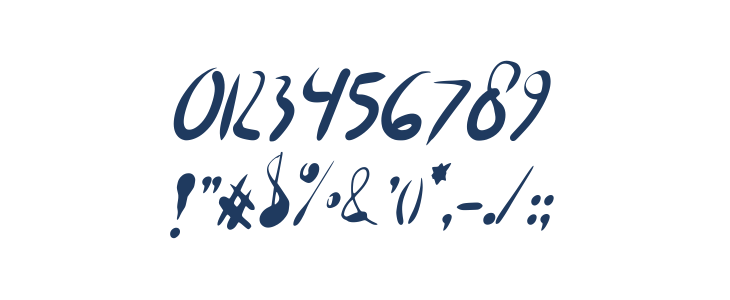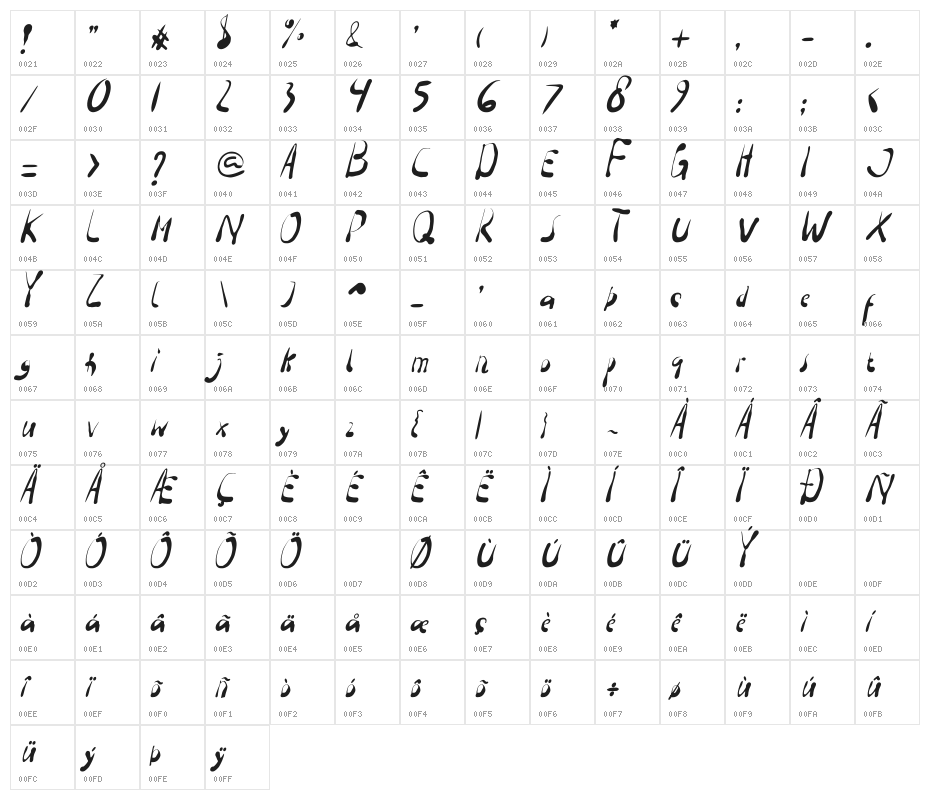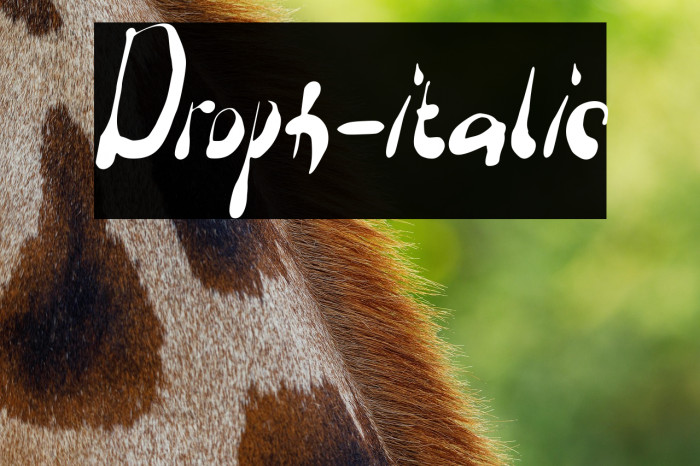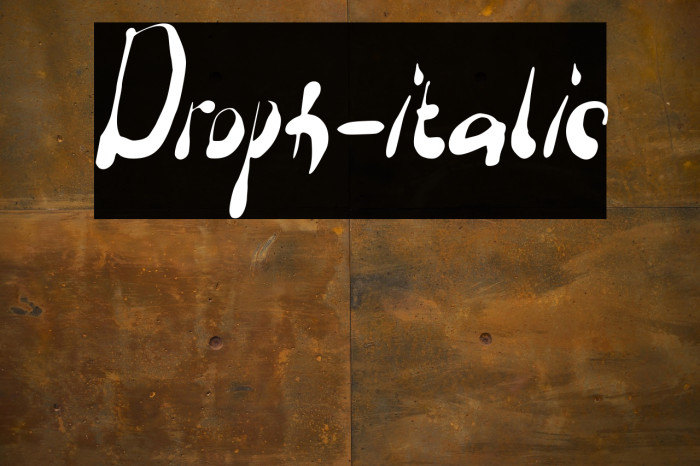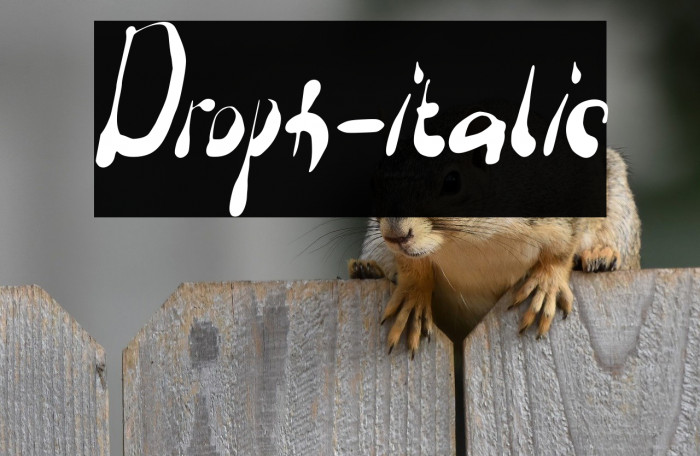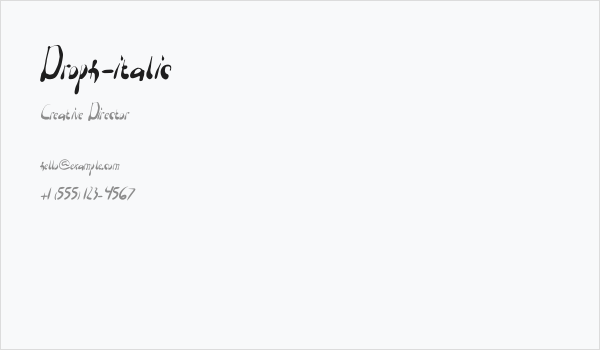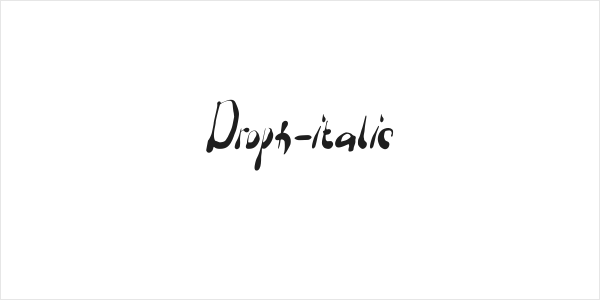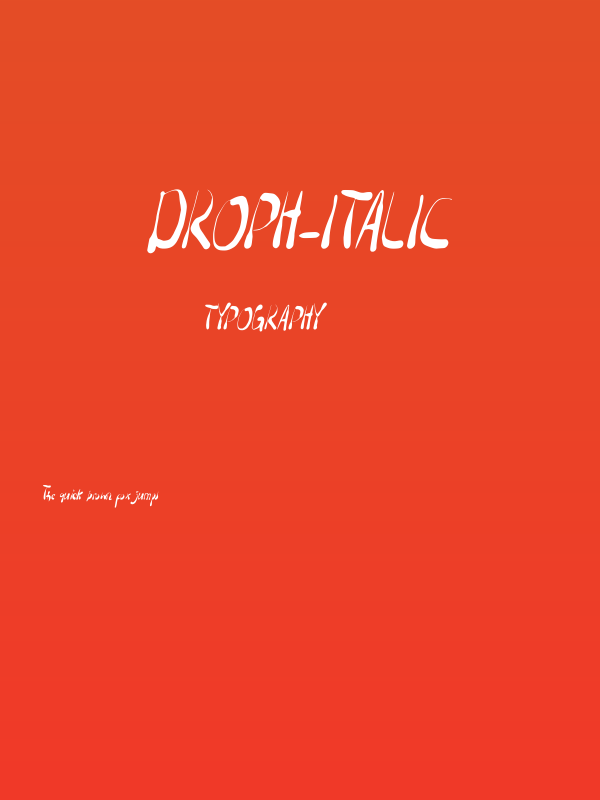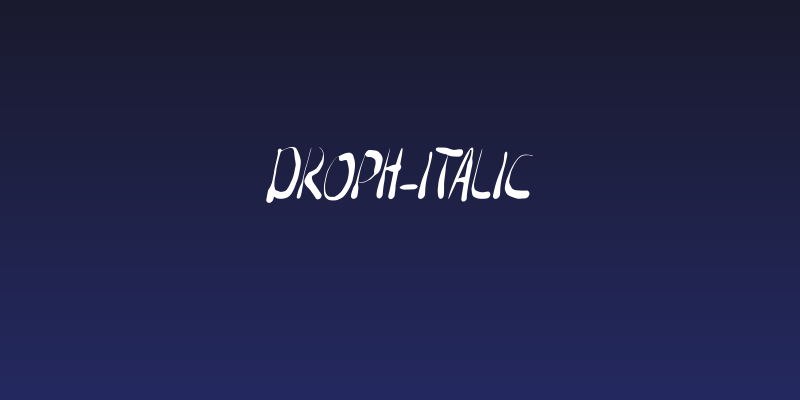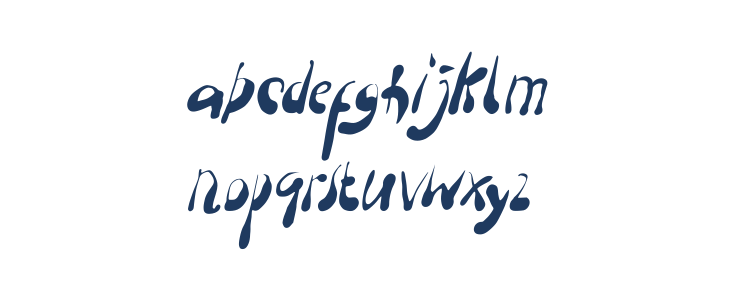
Droph-italic Font
Droph-italic Description
This font features a dynamic and fluid design, characterized by its italicized and handwritten style. The letters are elongated and slightly slanted, giving a sense of motion and elegance. The strokes vary in thickness, providing a high contrast that adds to its expressive nature. The uppercase letters are bold and prominent, while the lowercase letters maintain a consistent flow, enhancing readability. The numerals and special characters follow the same stylistic cues, ensuring a cohesive appearance across all characters. This font's unique style makes it suitable for creative and artistic projects.
| Proposed Projects | Ideal for artistic projects, invitations, branding, and expressive design work. |